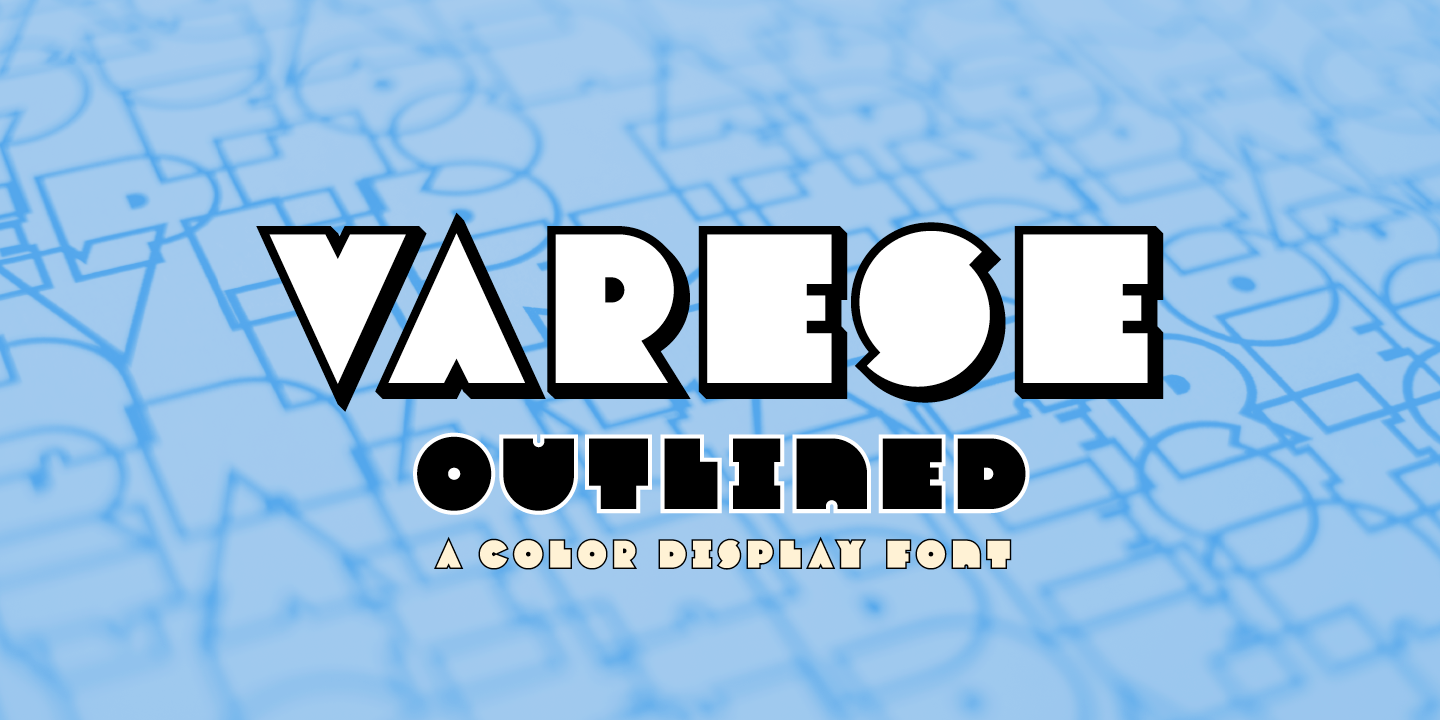
The Varese Outlined Font is a strikingly modern and often architectural display typeface, characterized by its clean, geometric forms with a distinct inline or outlined effect. This design adds an intriguing sense of depth and contemporary elegance to any visual. Imagine its sophisticated characters gracing the covers of sleek design magazines, adding a cutting-edge flair to urban development projects' branding, or creating captivating titles for technology conferences and minimalist digital art installations. Its clean sans-serif base combined with the elegant outlined detail also makes it an excellent choice for luxury product packaging, high-end event branding, dynamic advertising campaigns, and any design where precision, innovation, and a forward-thinking vision are paramount. Whether you're aiming for a minimalist yet sophisticated look or a bold statement with subtle complexity, Varese Outlined Font delivers with its distinctive style, ensuring your visuals are both refined and highly memorable.
What makes Varese Outlined Font so exciting is its ability to instantly infuse designs with a sense of structural elegance and modern craftsmanship. In a visual landscape where uniqueness is highly valued, this font stands out with its innovative outlined feature, creating a dynamic visual effect that adds a layer of sophistication without compromising readability. It’s more than just a typeface; it’s a design element that can instantly set a forward-thinking and polished tone for a project, making content feel more luxurious and meticulously crafted. Designers will find it an invaluable asset for creating visuals that truly resonate with an audience seeking contemporary style and understated flair. For seamless integration into modern designs, explore the Varese Outlined Font Free Download.
The Varese Outlined Font family is typically structured to offer a range of styles that amplify its architectural and modern appeal. Beyond the primary Varese Outlined Regular typeface, you might find companion styles such as a more impactful Varese Outlined Bold for stronger emphasis, or perhaps Varese Outlined Light for an even more ethereal quality. Given its clean, geometric leanings, the family may also include variations with different inline thicknesses or solid counterparts that can be layered for multi-color effects, enhancing its three-dimensional potential. These diverse family members provide designers with the flexibility to establish a clear typographic hierarchy and maintain a consistent, cutting-edge, and often minimalist aesthetic across all elements of their project, from dominant headlines and logos to subtle design accents.